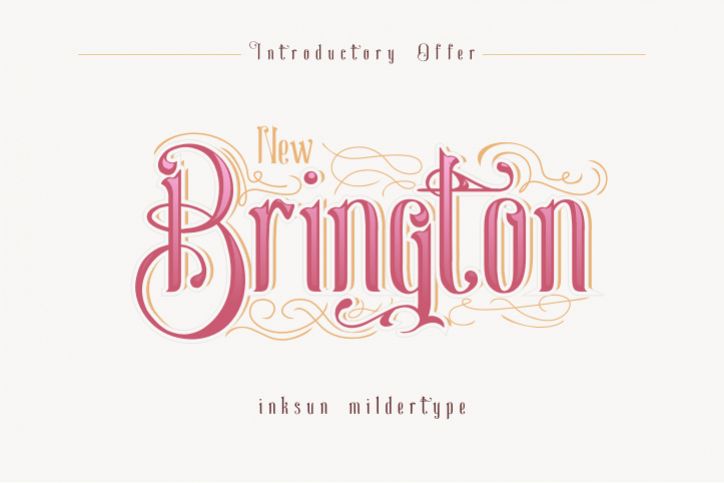
New Brington
new Brington font made ??with a mixture of ornament adds a classic and vintage. very well suited to be used for book titles, bands, movies, advertising etc.
Awesome font!
Crisp lines with a beautiful vintage flair.
I'm in love with this wonderful font.
I love the uniqueness of this font
I love the font but was disappointed there where no glyph and swashes with this font as the front picture of the font shows awesome glyph and swashes.